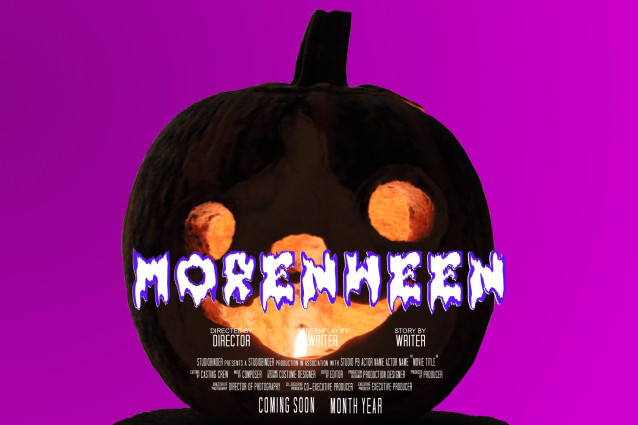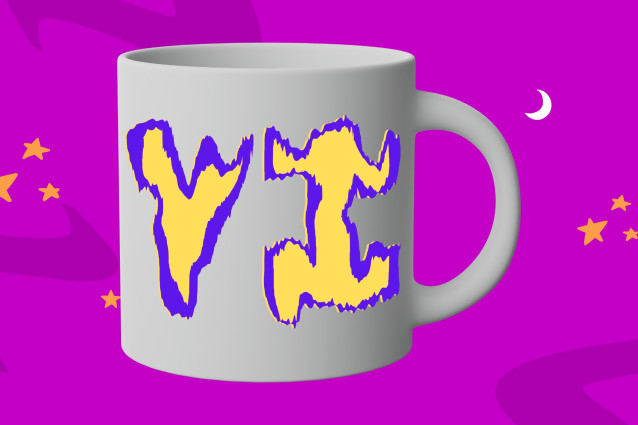
Novox Melted Font
Novox Melted Font is a bold, stylized display font with a unique melting effect that gives it a dramatic and edgy personality. Designed for maximum visual impact, this font is perfect for Halloween posters, horror-themed projects, urban artwork, gaming graphics, and alternative branding. Its dripping letterforms blend grunge aesthetics with creativity, making your message impossible to ignore.